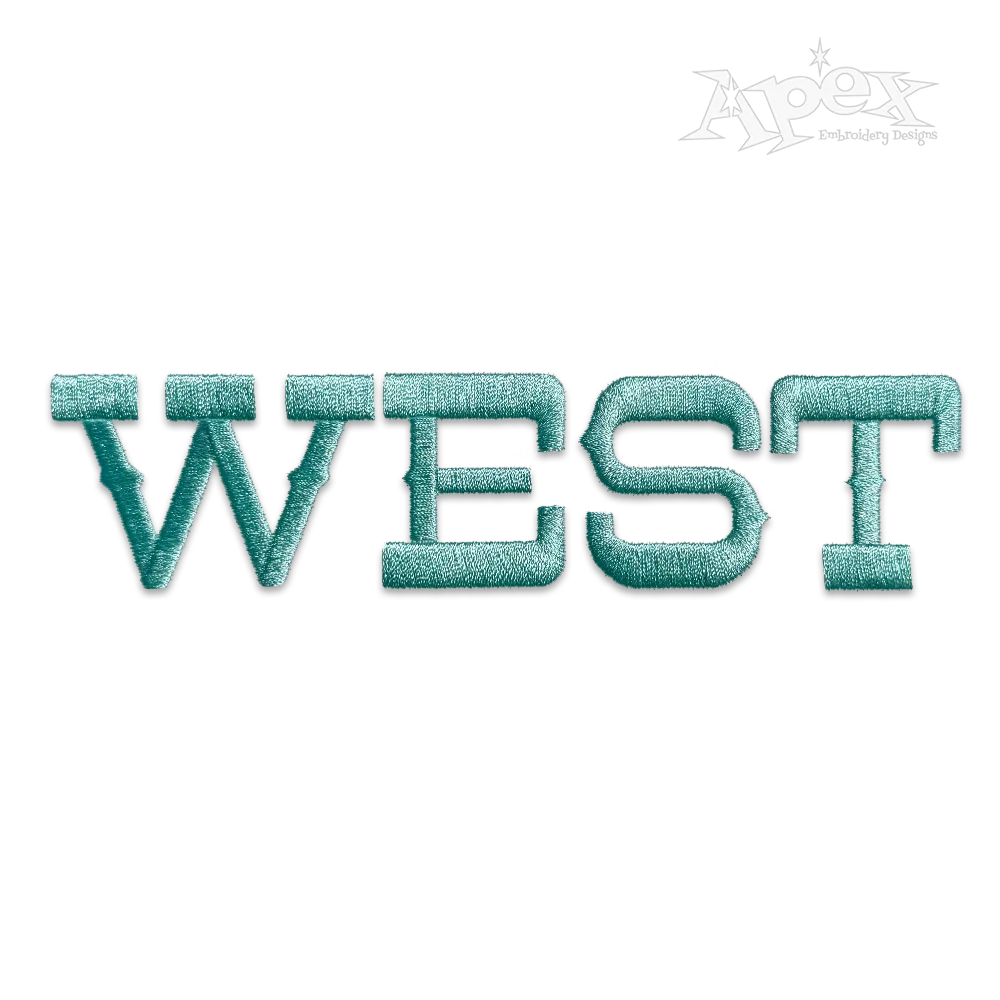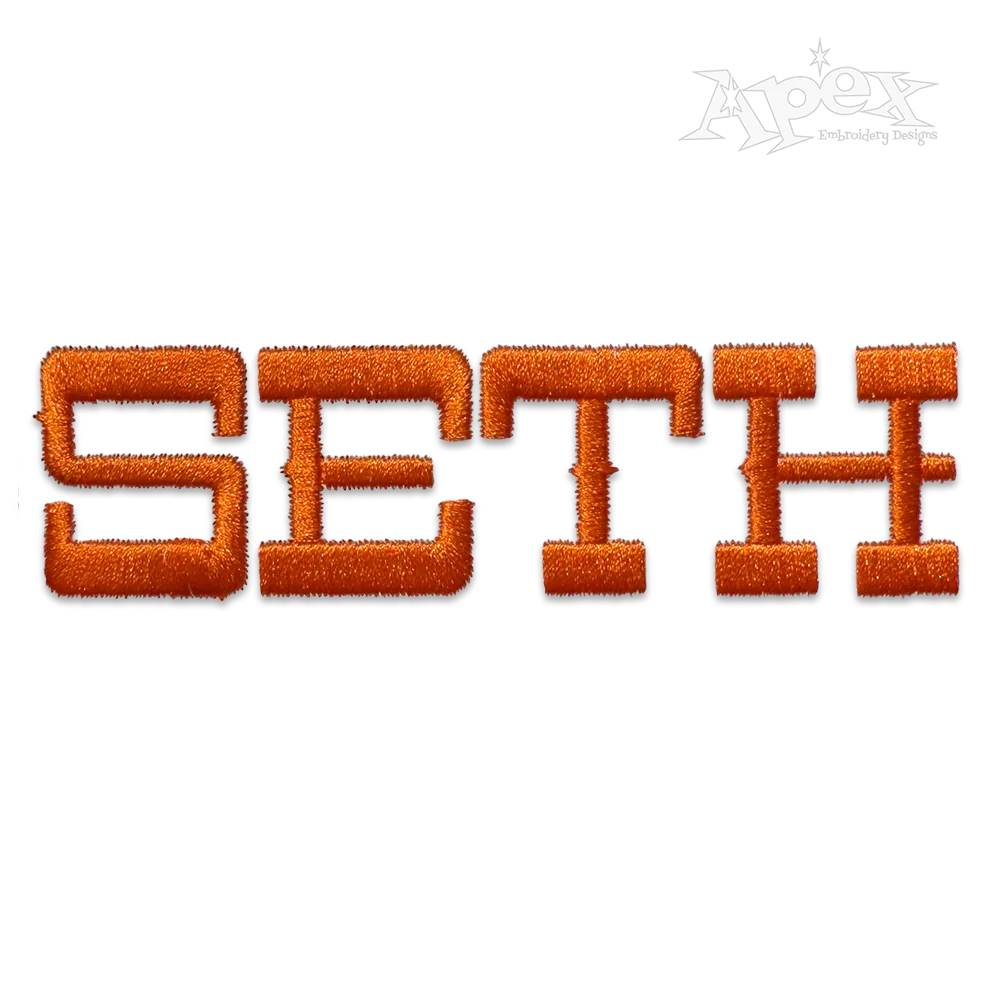
Vegas Embroidery Font
Born from the dusty crossroads of frontier grit and mid-century neon romance, the Vegas Embroidery Font captures the untamed spirit of the classic Western outlaw. When digitizing this distinctive alphabet at Apex Embroidery Designs, our goal was to craft letterforms that command attention with theatrical swagger and rugged elegance. Evoking the hand-painted lettering of vintage frontier saloons, tooled leatherwork, and midnight desert marquees, each character carries an unmistakable boldness designed to transform everyday stitching into custom monogramming with an unforgettable silhouette.
Project Ideas for Vegas Embroidery Font
- Rugged Denim & Outerwear: Stitch personalized initials across the back yoke of vintage trucker jackets or raw denim vests for an authentic ranch-inspired edge.
- Structured Western Headwear: Embroider single initial monograms on canvas, wool felt, or twill trucker caps for bespoke frontier styling.
- Bespoke Barware & Entertaining: Accentuate heavy canvas bar towels, linen cocktail napkins, and leather coasters for a stylish home saloon or rustic lodge retreat.
- Personalized Travel Gear: Monogram heavy-duty duffel bags, dopp kits, and canvas tool rolls for durable, masculine gifting.
- Custom Rodeo & Equestrian Apparel: Embellish saddle pads, team shirts, and gear bags with sharp, high-contrast outlaw lettering that stands out in the arena.
- Left Chest Pocket & Yoke: Position the 1.0-inch or 1.5-inch glyphs centered directly above Western pocket flaps or along the rear shoulder line for iconic Americana appeal.
- Structured Cap Fronts: Use the 0.75-inch or 1.0-inch letters aligned dead center on structured six-panel hats, utilizing firm hooping to keep the sharp spurs crisp.
- Sleeve Cuffs & Hemlines: Place the diminutive 0.5-inch size on shirt cuffs or pocket rims for an understated, bespoke monogram accent.
- Diagonal Tableware Accents: Embroider the 1.5-inch letters diagonally across the corner of heavy natural linen napkins to frame rustic dinner settings.
Vegas Embroidery Font Craft & Letterform Details
The defining visual hallmark of the Vegas Western font lies in its aggressive diamond spurs, chiseled slab serifs, and proud, upright architecture. Each stem is digitized with balanced satin stitch columns that build substantial physical texture without over-stressing delicate fabrics. We programmed tailored underlay foundations beneath every sharp contour to anchor the stitches securely, ensuring the dramatic center thorns retain their crisp needle points across textured denim, canvas, and twill. Smooth direction changes throughout the corners eliminate stitch bunching, allowing rich metallic and rayon threads to catch the light with commanding, three-dimensional definition.